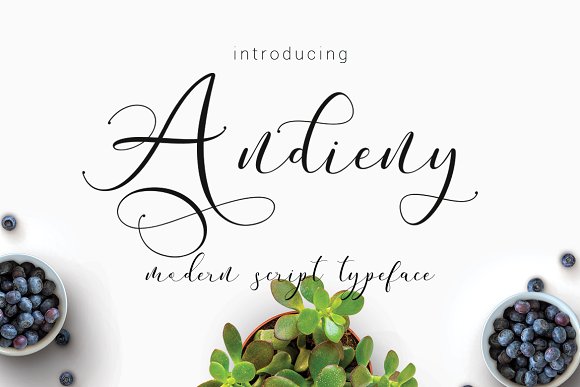
Andieny Font: Elevate Your Designs with a Modern Twist on Hand-Lettered Calligraphy
When it comes to creating visually stunning designs, the right font can make all the difference. For those looking to add a touch of elegance and personality to their work, the Andieny Font is an exceptional choice. This hand-lettered calligraphy font, with its modern twist, is perfect for a variety of projects, from invitations and thank you cards to craft-style items and more.
What is Andieny Script?
Andieny Script is a beautifully crafted font that combines the elegance of traditional calligraphy with the uniqueness of modern design. Its hand-lettered style gives it a personal and intimate feel, making it ideal for projects where you want to convey a sense of warmth and individuality.
What sets Andieny Script apart is its modern twist. While it maintains the classic charm of calligraphy, it incorporates contemporary elements that make it versatile and suitable for a wide range of applications. Whether you’re designing wedding invitations, crafting thank you cards, or creating unique craft-style items, Andieny Script can add that extra special touch to your work.
Key Features of Andieny Font
- Hand-Lettered Calligraphy: The font boasts a beautiful, hand-crafted look that brings a personal touch to any design.
- Modern Twist: Andieny Script combines traditional calligraphy with modern design elements, making it fresh and versatile.
- Elegant and Unique: Its elegant strokes and unique style ensure that your designs stand out from the crowd.
- Perfect for Various Projects: From formal invitations to casual craft-style items, Andieny Script is suitable for a wide range of design needs.
Uses of Andieny Script
Andieny Script’s versatility makes it an excellent choice for numerous design projects. Here are some of the best ways to use this beautiful font:
- Wedding Invitations: Add a touch of elegance and romance to your wedding invitations with Andieny Script.
- Thank You Cards: Personalize your thank you cards with this beautiful font, making them extra special for your recipients.
- Craft-Style Items: Whether you’re creating handmade cards, journal entries, or decorative items, Andieny Script can enhance your craft projects with its unique style.
- Stationery and Branding: Use Andieny Script for your stationery or as part of your branding to give your business a personal and sophisticated look.
Tips for Using Andieny Font Effectively
To get the most out of Andieny Script, consider the following tips:
- Pair with Complementary Fonts: Combine Andieny Script with simpler fonts to create contrast and make your text more readable.
- Adjust Size and Color: Experiment with different sizes and colors to find the perfect combination that suits your design.
- Use for Headlines and Titles: Andieny Script shines in headlines and titles, where its elegant and unique style can be fully appreciated.
- Keep it Simple: While Andieny Script is beautiful, it can be intricate. Ensure your overall design doesn’t become too cluttered.
Andieny Font, with its hand-lettered calligraphy and modern twist, is a valuable addition to any designer’s toolkit. Its elegance, uniqueness, and versatility make it perfect for a variety of projects, from formal invitations to casual craft-style items. By incorporating Andieny Script into your designs, you can add a personal touch and make your work stand out.
Whether you’re a professional designer or someone who loves crafting and DIY projects, Andieny Script can help elevate your designs to the next level. So, why settle for ordinary when you can create something extraordinary with Andieny Font?